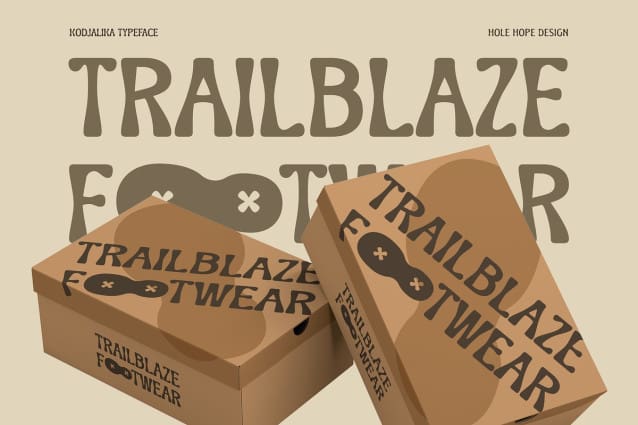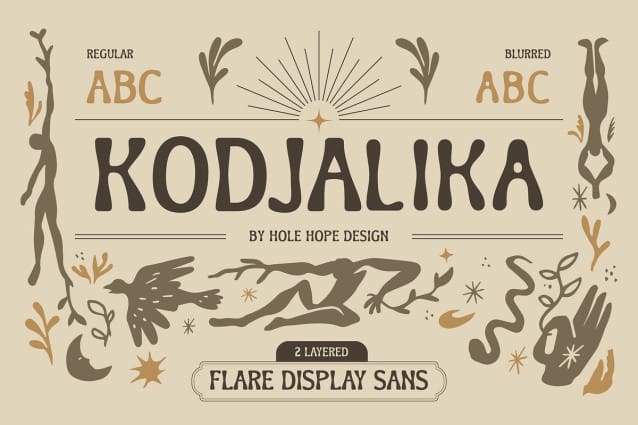
Kodjalika Display Font
Kodjalika Display Font, a cutting-edge Flare Display Sans Serif Font that effortlessly combines modern aesthetics with Folk & Ethnic. This font is meticulously crafted to bring a sense of sophistication and versatility to your creative projects.